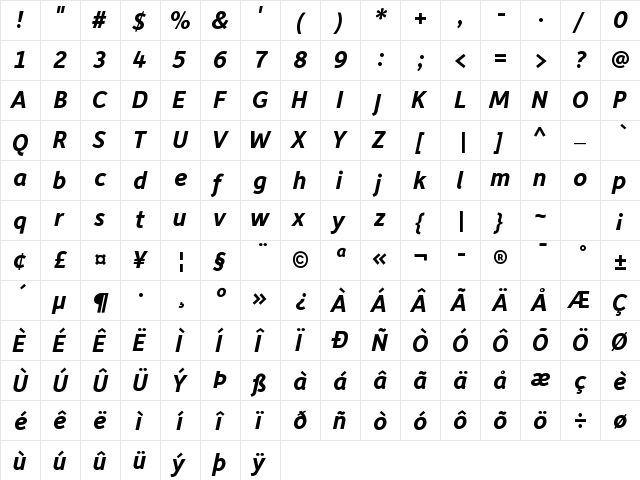
Depot Bold Italic
| Foundry | C.Dickinson |
| Designer | C.Dickinson |
Design Context for Depot Typeface
Depot takes a measured approach to typography — its balanced proportions and neutral character make it a reliable workhorse for both digital and print work. The dynamic lean of this cut emphasises speed and emphasis in any layout. Its bold stroke weight gives it real presence on the page.
Pro Tip: Use Depot for emphasis, pull quotes, and subheadings where its slanted energy can add rhythm to the layout.